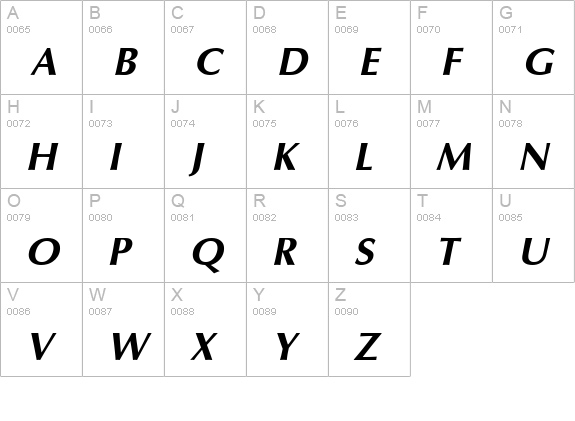
Interface SSi Bold Italic is a strong, high-contrast, italic variant in the Interface typeface family \xE2\x80\x94 well suited to headlines, attention-grabbing titles, and strong calls-to-action.
Introducing Interface SSi Bold Italic, a stunning font that effortlessly combines boldness and elegance. This font is the perfect choice for those looking to make a statement with their design projects. With its sleek and modern appearance, Interface SSi Bold Italic adds a touch of sophistication to any text. The unique blend of bold strokes and subtle italics creates a visually striking effect that captures attention and commands a strong presence. Whether it's for headlines, logos, or branding materials, Interface SSi Bold Italic is sure to leave a lasting impression. What sets Interface SSi Bold Italic apart is not just its exceptional design, but also the fact that it is available for free. That's right, this remarkable font can be downloaded at no cost from FontsMarket.com. It's the perfect opportunity to enhance your creative endeavors without breaking the bank. So why wait? Take advantage of the free availability of Interface SSi Bold Italic and elevate your designs to new heights. Whether you're a professional designer or an aspiring creative, this font is a must-have in your arsenal. Download it now at FontsMarket.com and experience the power of Interface SSi Bold Italic for yourself.